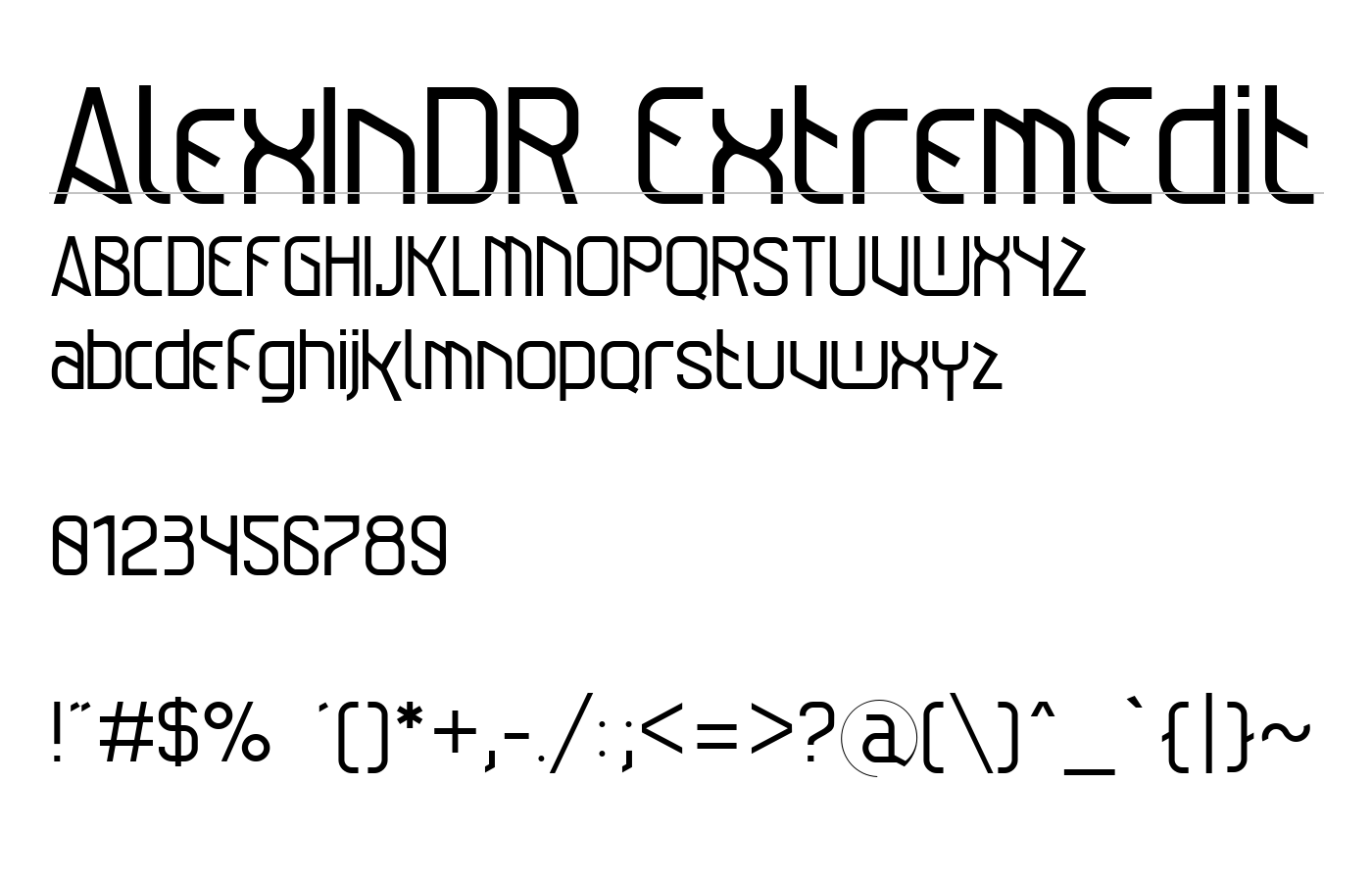
AlexInDR ExtremEdit is a sleek, modern sans serif font with a narrow and geometric design that feels technical and futuristic. Its tall, condensed letterforms feature consistent stroke widths and angular details, giving it a distinctive, cutting-edge personality ideal for bold headings, tech branding, and digital interfaces. This font works best where clear, contemporary style with a hint of innovation is needed to capture attention and convey precision.
AlexInDR ExtremEdit Font
About AlexInDR ExtremEdit Font
| Font family | AlexInDR ExtremEdit Font |
| Designer | FatFactory |